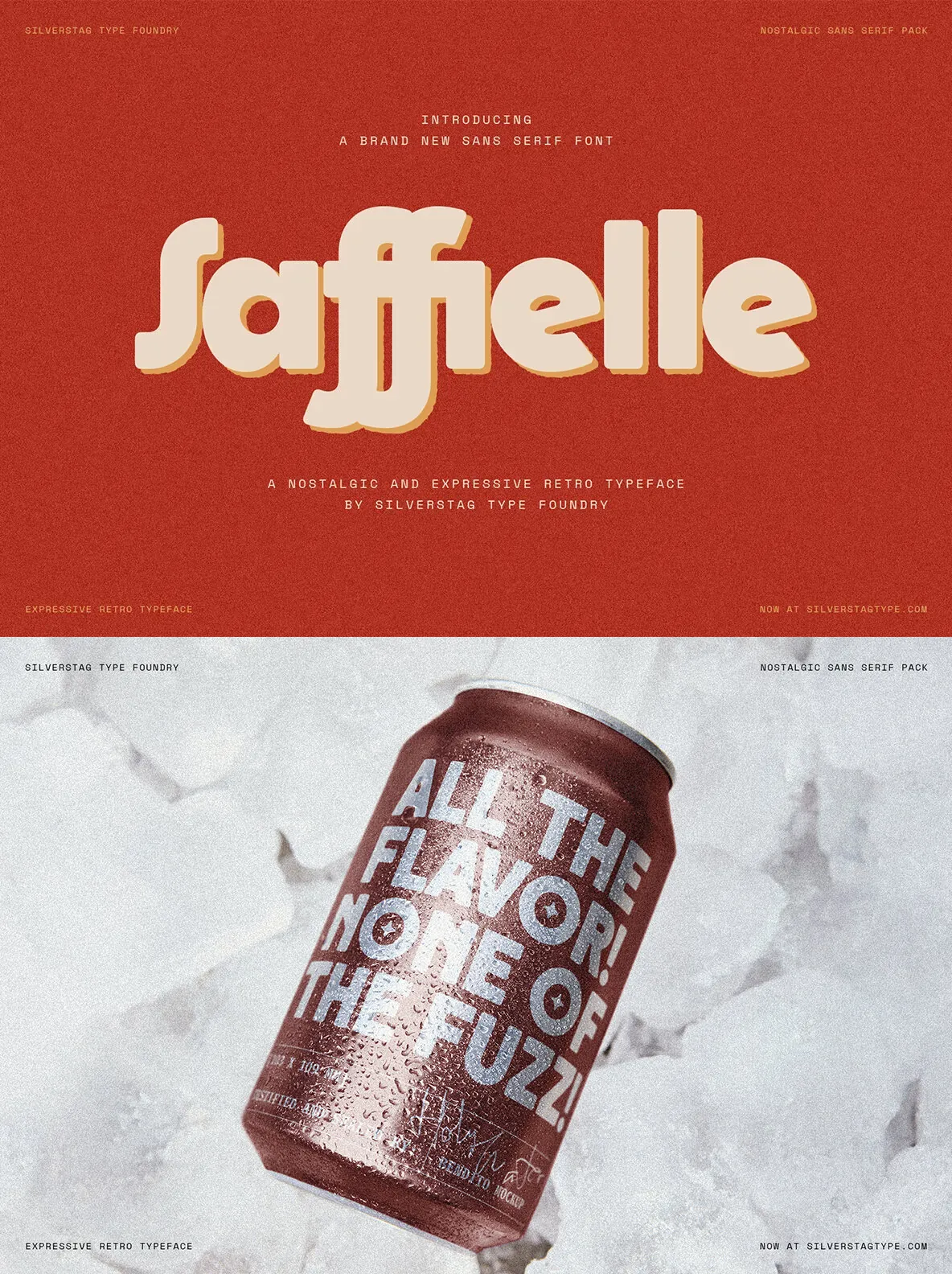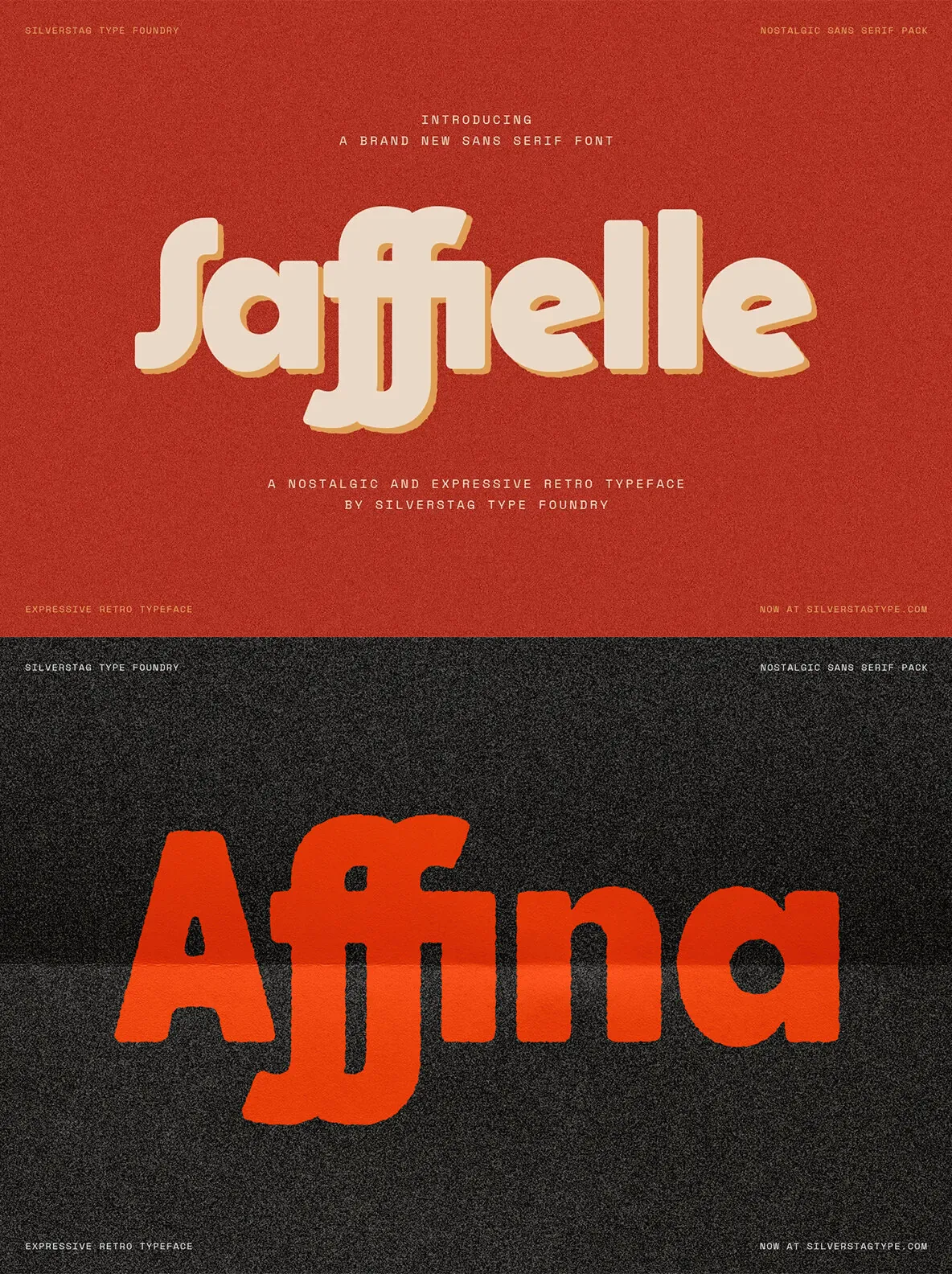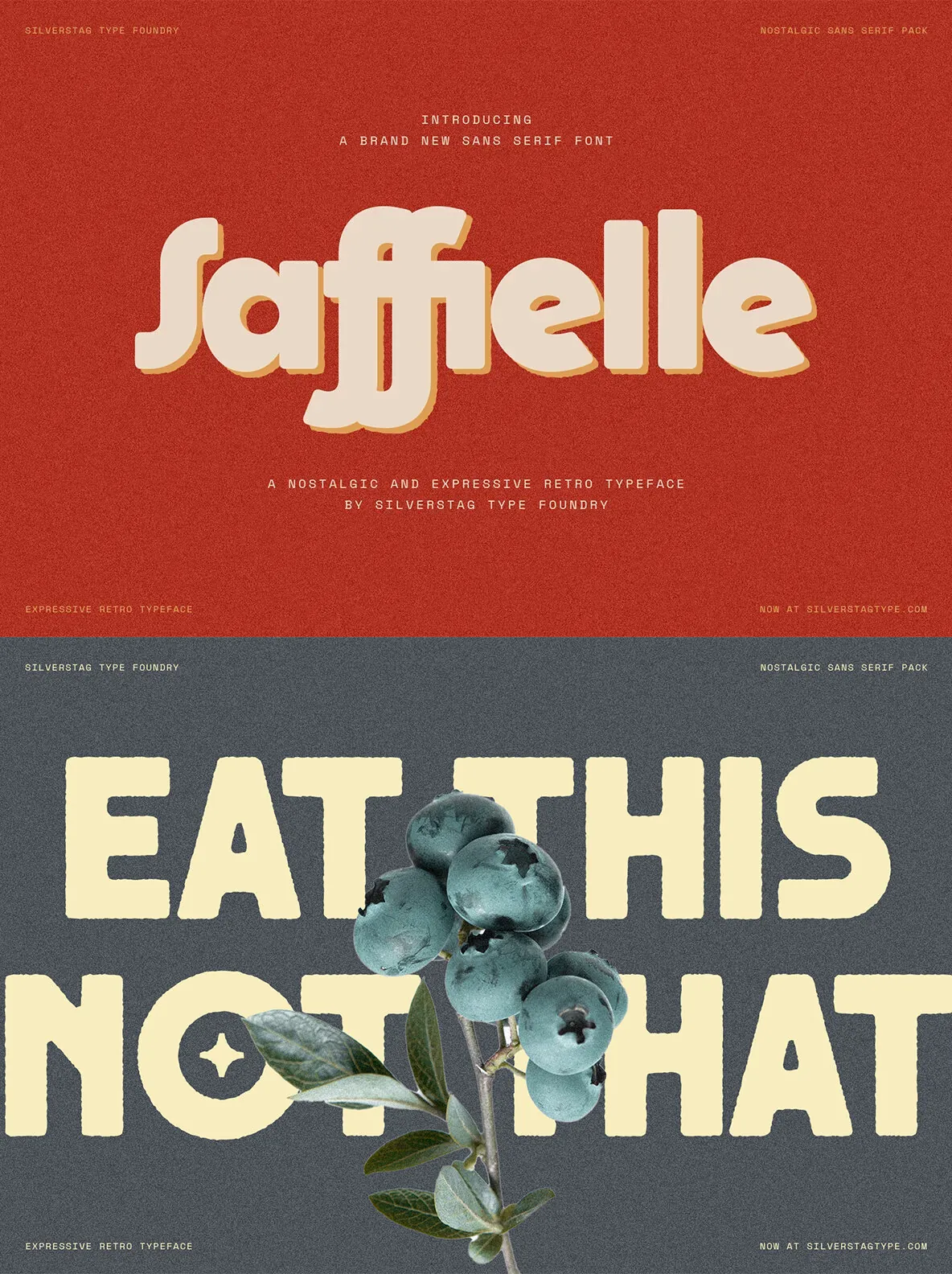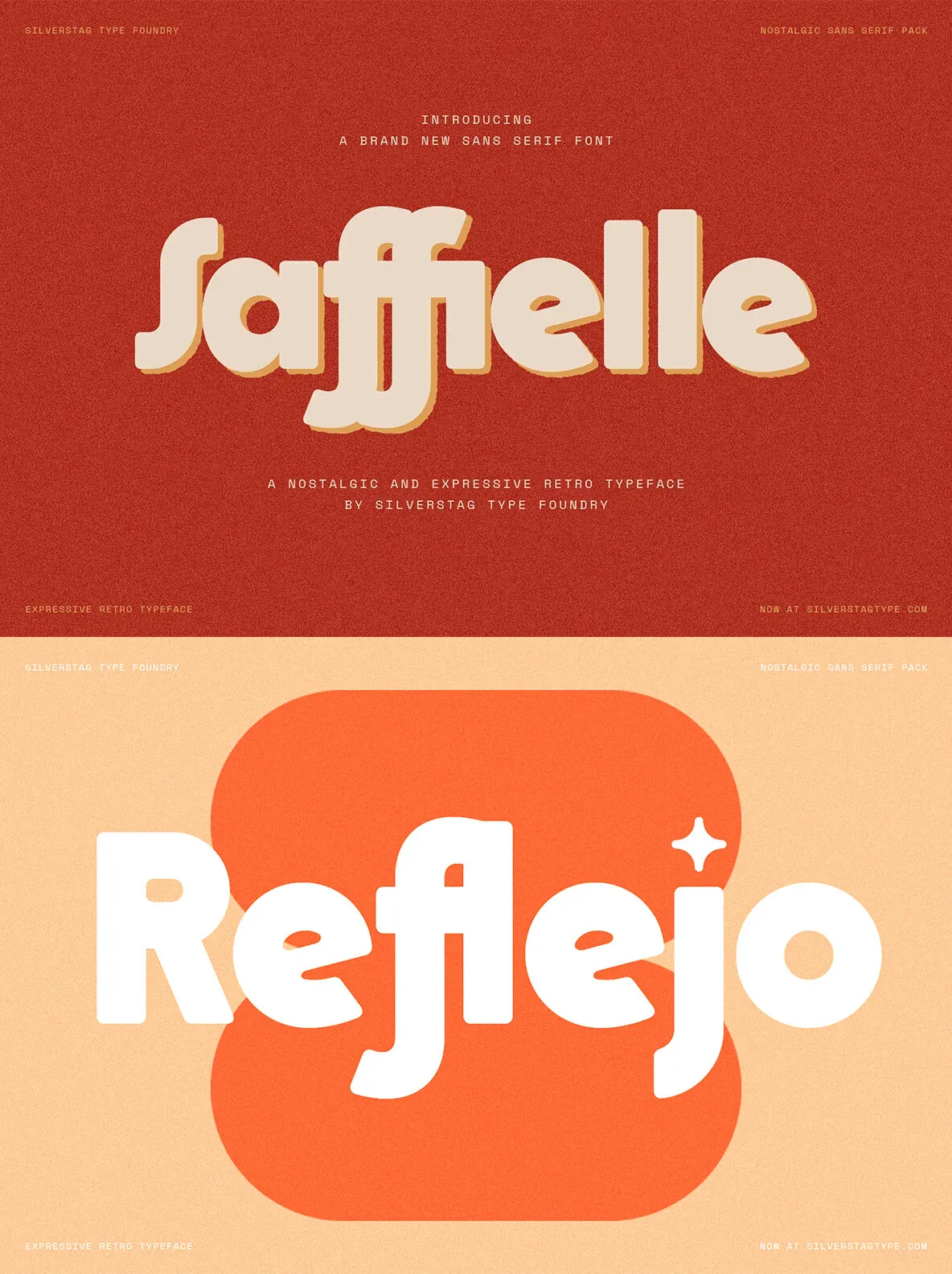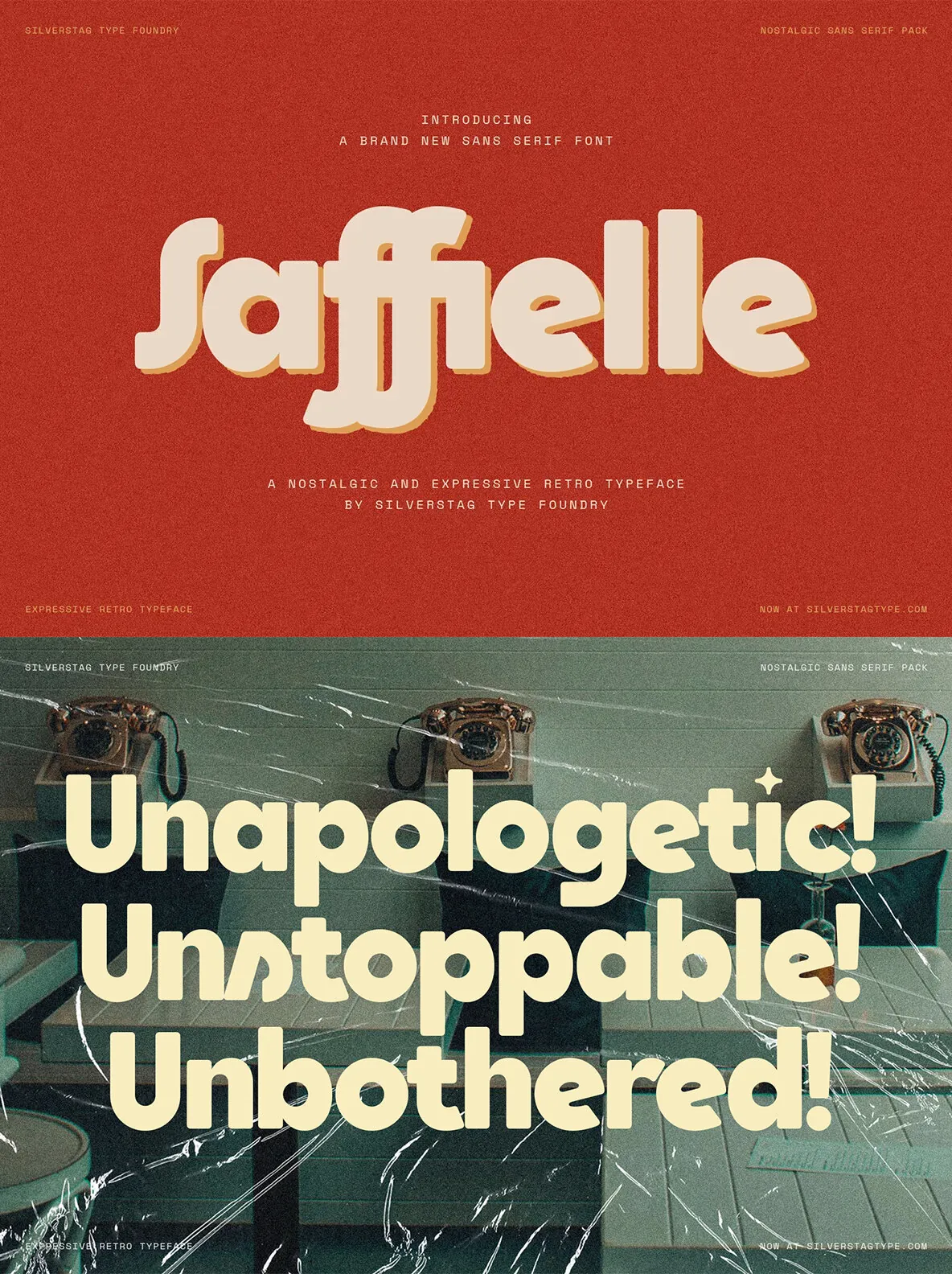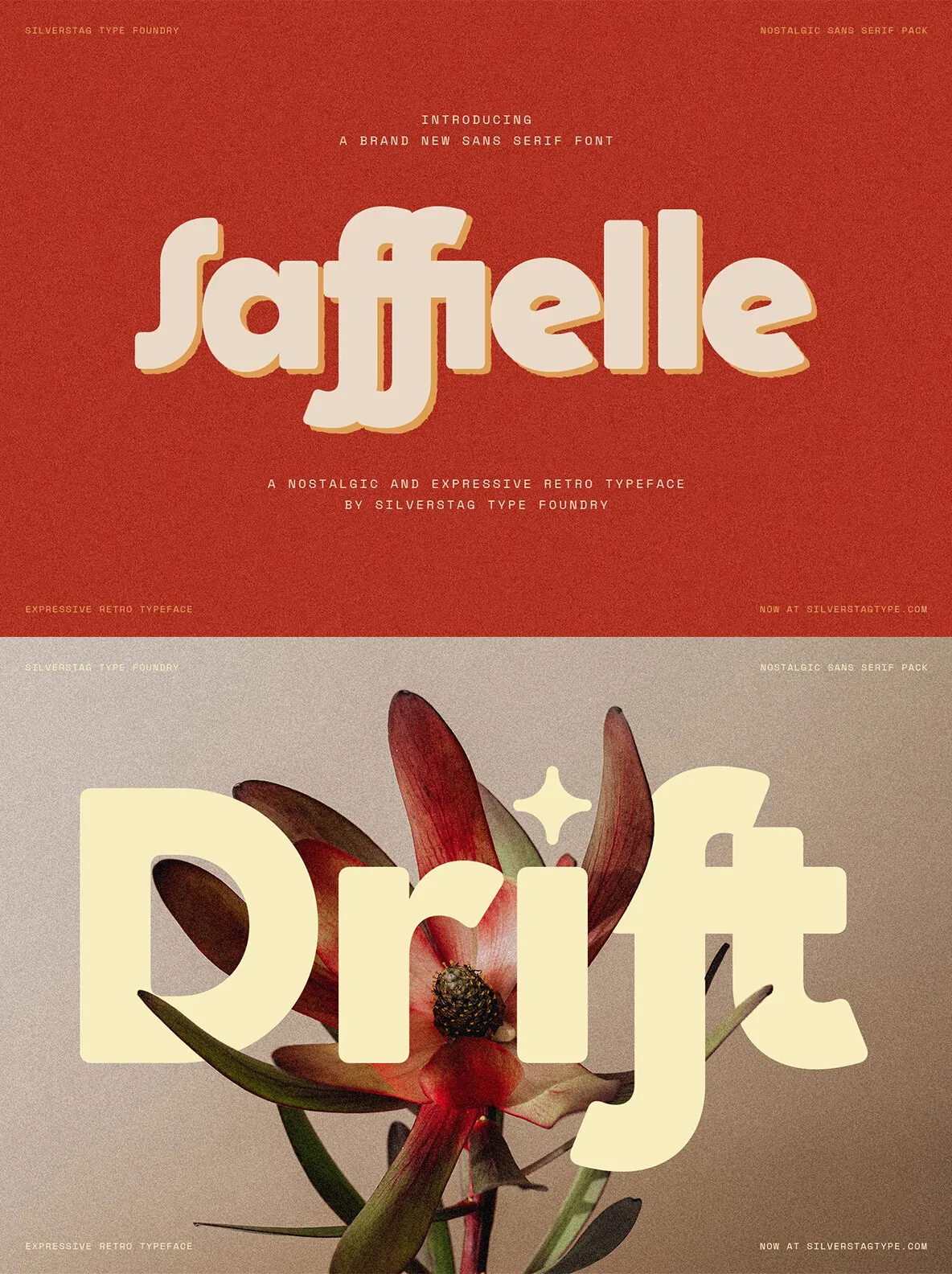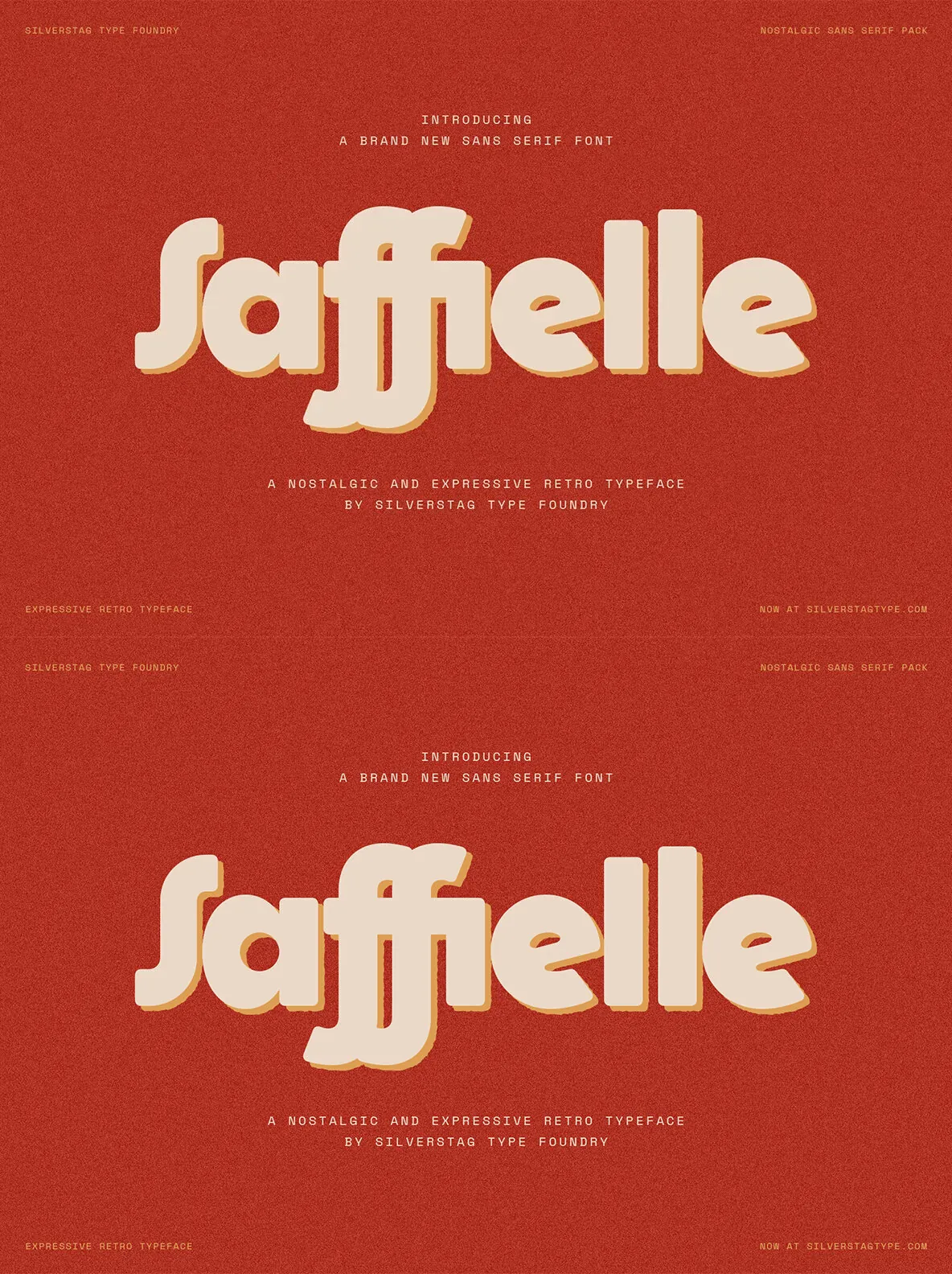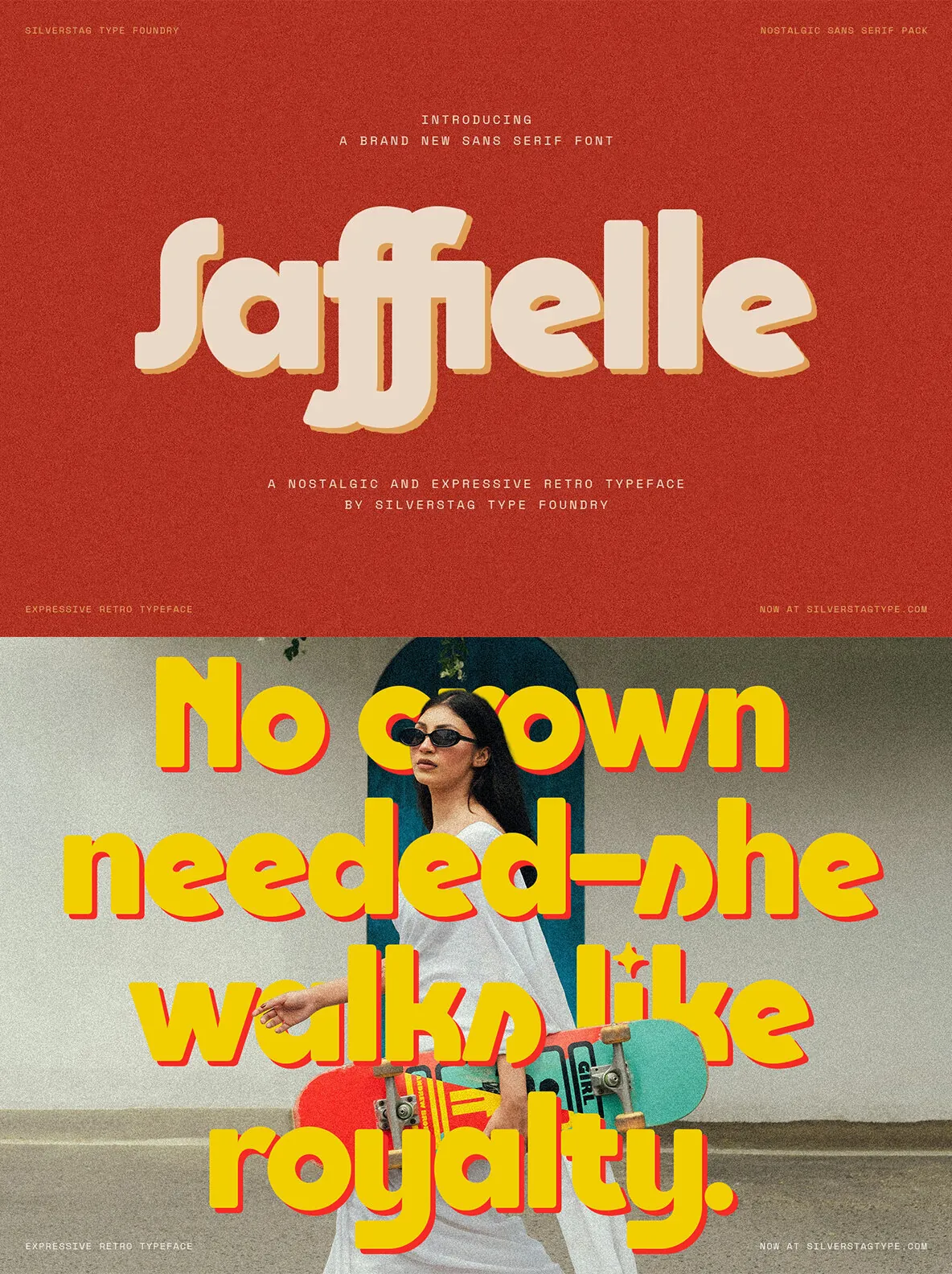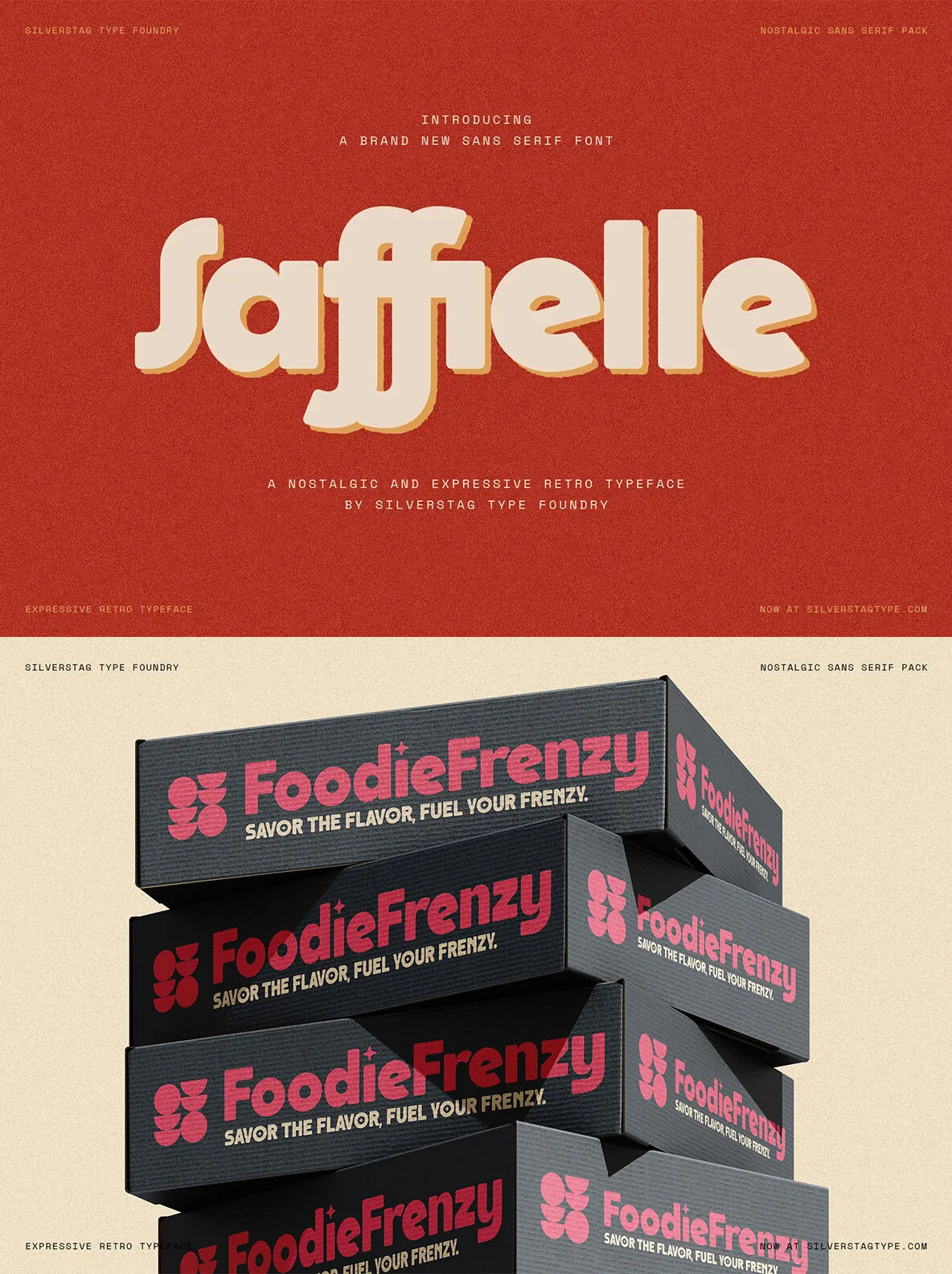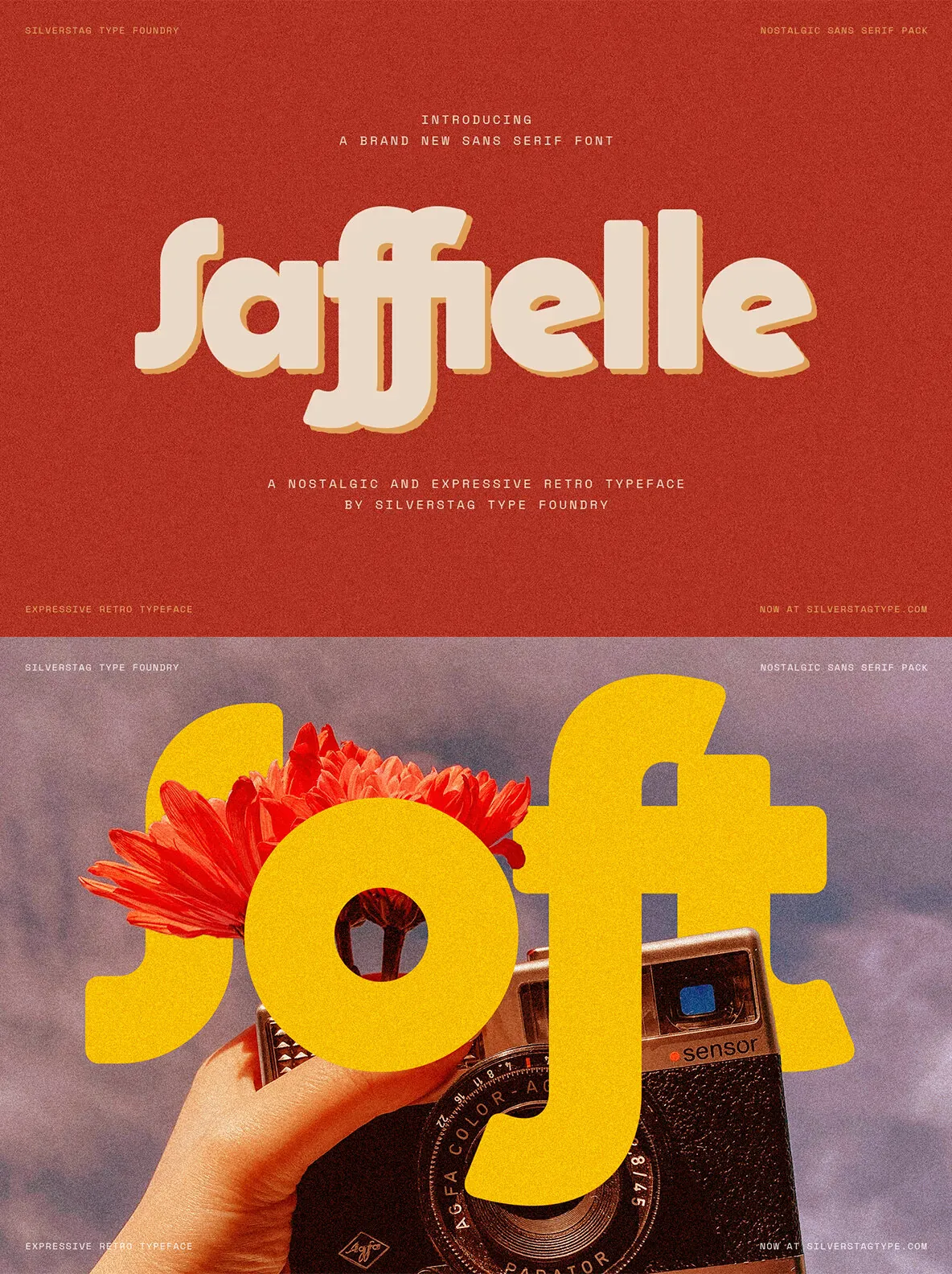
SLTF Saffielle — Retro Poise, Modern Bite
SLTF Saffielle is an expressive sans serif typeface that combines retro aesthetics with modern versatility. It suits designers who want a nostalgic touch without giving up clarity or range. Saffielle includes two distinct variants: a sleek Regular version and a textured Vintage style with gentle rough edges.
The typeface carries a chic, confident tone through creative ligatures, alternate letterforms, and broad language support for over 100 languages. Use it for branding, packaging, editorial headlines, posters, and any project that needs attitude and warmth. Saffielle helps your typography stand out while staying stylish and timeless.
Bold, expressive sans serif design
Clean Regular and textured Vintage styles
Creative ligatures and alternate letterforms
Support for over 100 languages